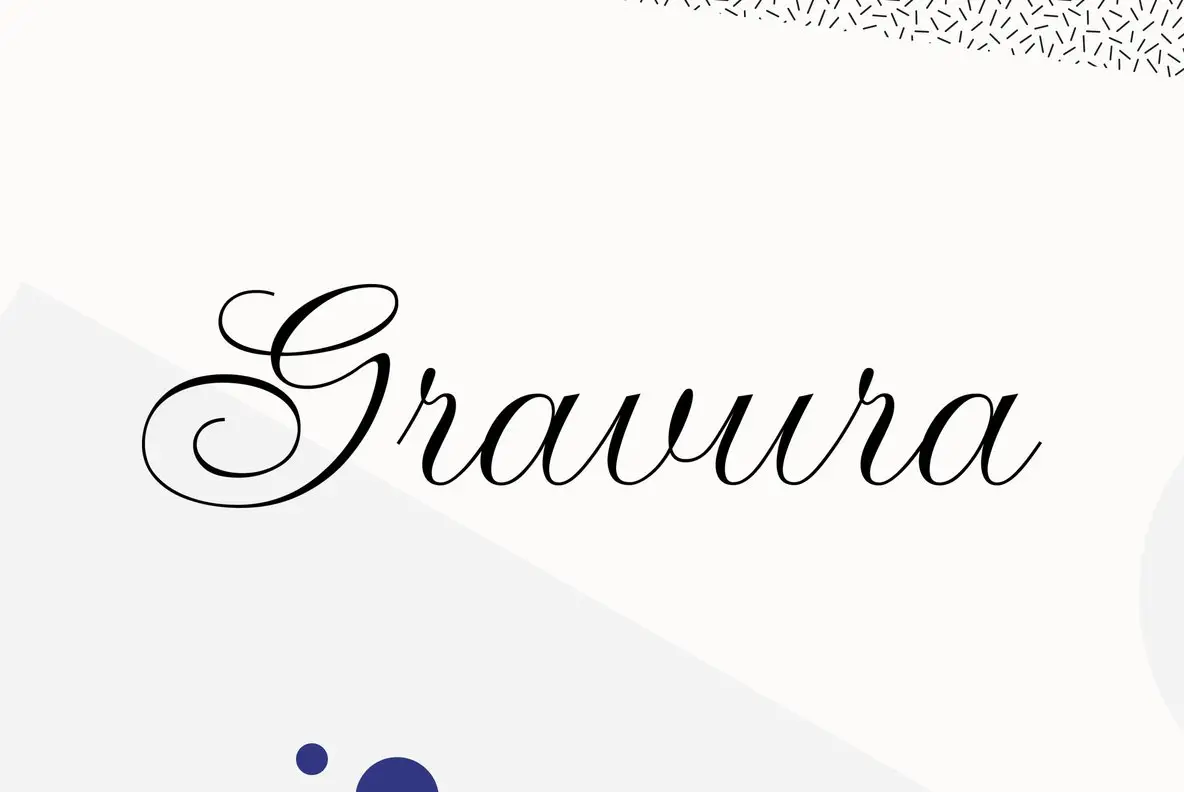
Gravura
Foundry: Letraset
Gravura is a classic copperplate script style in every sense of the word, perfect thickness of stroke and letter proportions set it ahead of the crowd in this very competitive category. Initial capitals provide an ornamental flourish and blend beautifully with the simple, elegant lines of a lowercase that has been painstakingly prepared to ensure free-flowing linkage. British designer Phill Grimshaw has also included a selection of ending elements to give settings a special, personalized appearance.